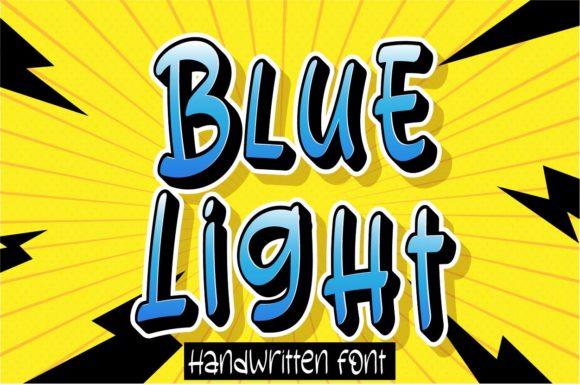
Introducing Blue Light Font - The Enchanting Gateway to Clarity and Creativity
In the realm of digital artistry, where imagination reigns supreme, Blue Light Font emerges as a beacon of brilliance, illuminating the path to captivating designs. With its inherent beauty and versatility, this display font grants you the power to transform your creative endeavors into extraordinary expressions of artistry.
Blue Light Font - A Majestic Symphony of Style
Crafted with meticulous attention to detail, Blue Light Font captivates with its elegant curves and modern aesthetics. Each letterform is like a carefully chiseled gem, exuding an aura of sophistication and timeless appeal. Whether you're a seasoned designer seeking a touch of distinction or a budding artist yearning for a unique voice, Blue Light Font will elevate your creations with its enchanting allure.
Blue Light Font - Your Canvas of Infinite Expression
Let your imagination soar as you explore the boundless possibilities of Blue Light Font. Its inherent flexibility allows you to effortlessly adapt it to a myriad of design projects. From eye-catching logos that command attention to captivating social media posts that ignite engagement, Blue Light Font serves as your trusted companion, amplifying your message with undeniable impact.
Blue Light Font - Where Elegance Meets Functionality
Not only does Blue Light Font possess breathtaking beauty, but it is also a font of unwavering functionality. Its meticulously designed characters ensure optimal readability across diverse applications. Whether you're crafting presentations that demand clarity or designing websites that exude professionalism, Blue Light Font delivers an unparalleled user experience, leaving a lasting impression that resonates with your audience.
Blue Light Font - Your Key to Unlocking Creative Potential
Embark on a journey of creative exploration with Blue Light Font as your steadfast guide. Unleash your inner artist and let your ideas take flight, knowing that this remarkable font will faithfully transform them into stunning realities. Experience the joy of seamless design and witness how effortlessly Blue Light Font elevates your projects, propelling them to new heights of brilliance.